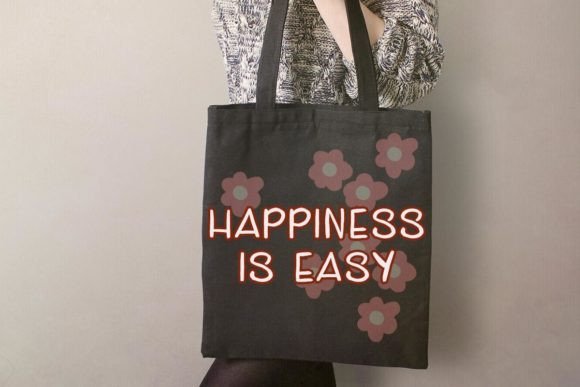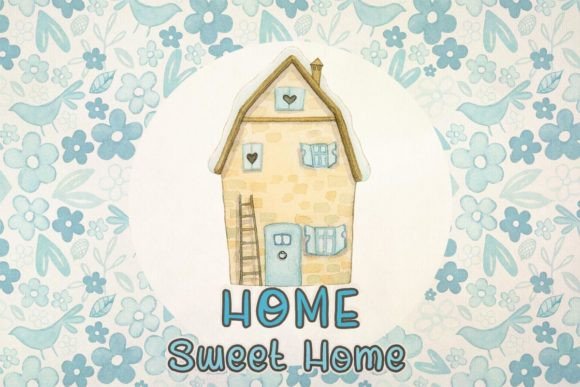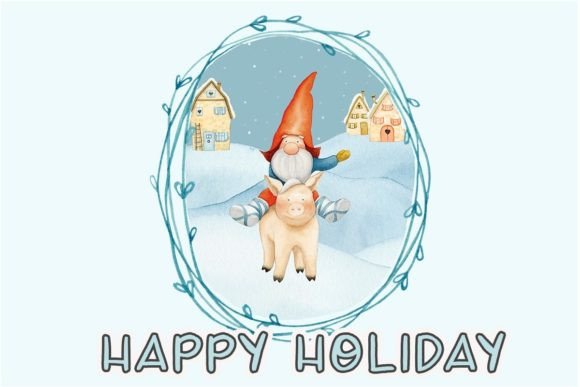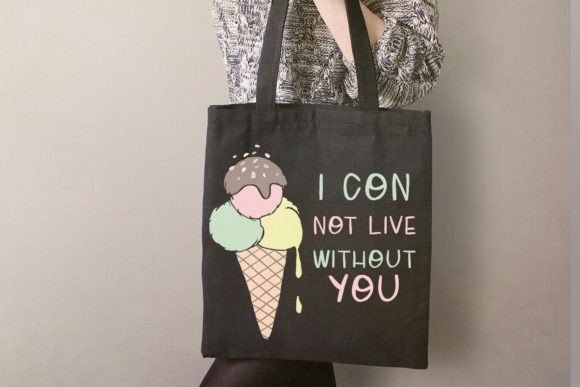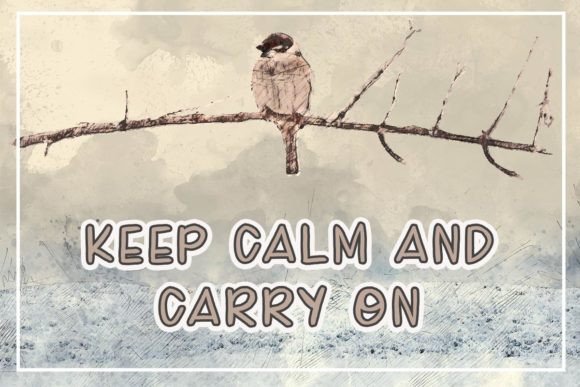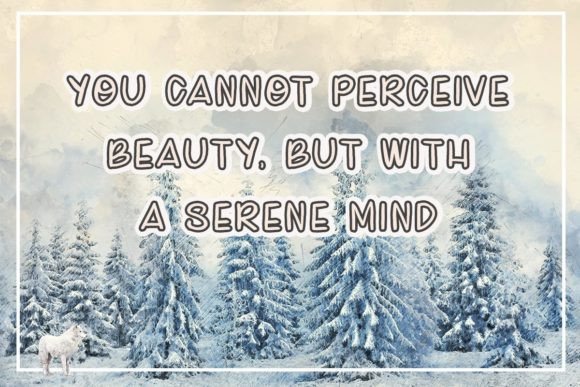
Scribble Book Font
About Scribble Book Font
Scribble Book is a casual and friendly handwritten font. Whether you’re using it for crafting, digital designing, presentations, or greeting card making, it’s perfect!